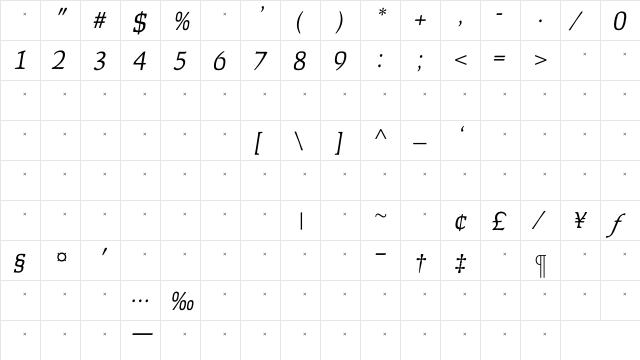
Design Context for FaustLightItalicTab Typeface
FaustLightItalicTab is a composed and adaptable typeface that performs quietly and consistently across a wide range of design contexts. The dynamic lean of this cut emphasises speed and emphasis in any layout. Its slender proportions lend an understated elegance to any composition.
Pro Tip: Try FaustLightItalicTab for annotation and caption copy alongside an upright companion — the contrast in angle creates a dynamic but ordered typographic system.